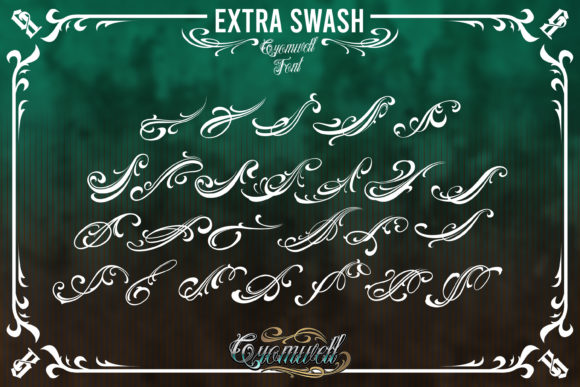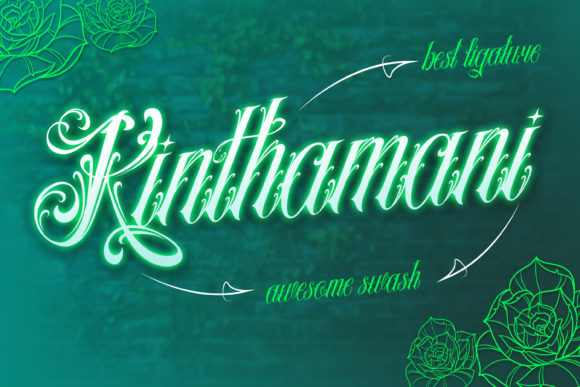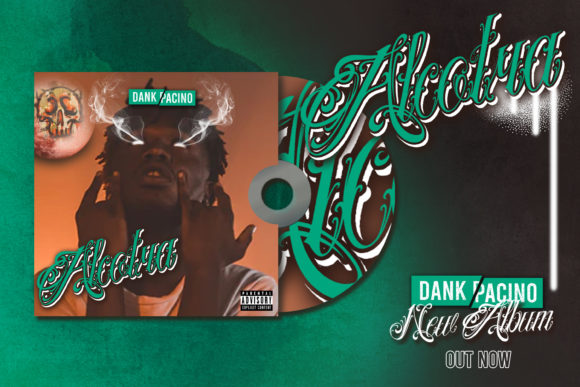
About Cromwell Font
Cromwell is a ravishing and highly detailed script font. It will add a luxury spark to any design project that you wish to create! This unique font will effortlessly turn any design project into a stand out!